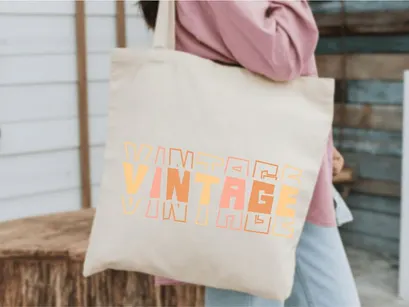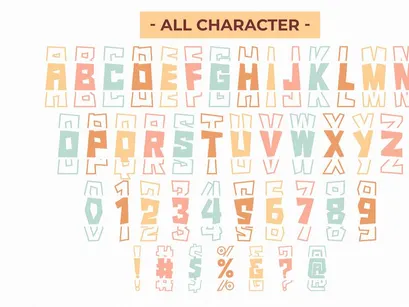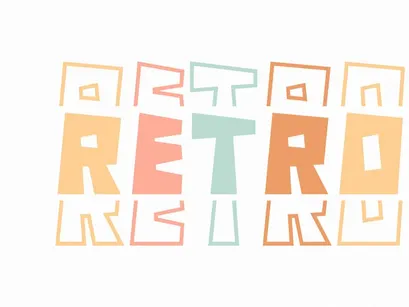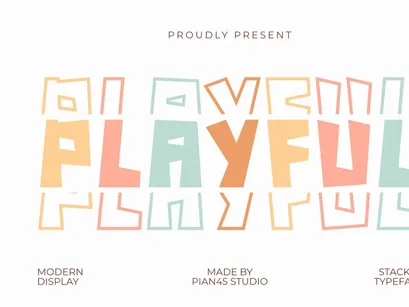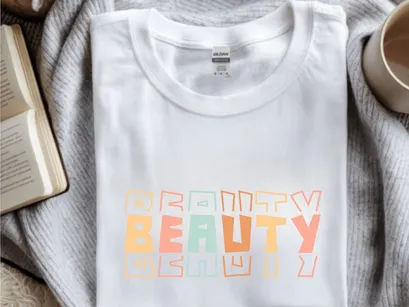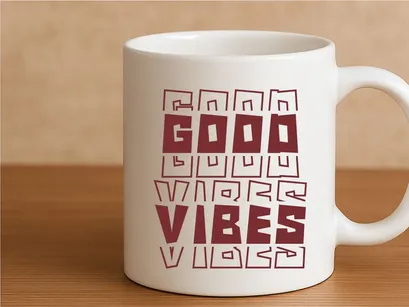
Playful Stacked is a vibrant and high-energy Modern Display font designed to bring a fun, three-dimensional look to your creative projects. This chunky, rounded typeface features a unique stacked and layered design that is perfect for children's branding, cheerful apparel, toy packaging, and eye-catching social media headlines. Its bold, bubbly, all-caps structure delivers a modern and joyful visual identity, making it an essential tool for sticker designs, birthday posters, and any project that demands a friendly, commanding, and instantly recognizable presence.